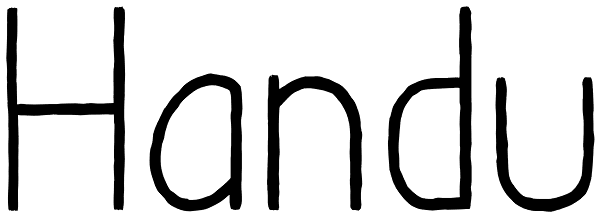
Handu
Handu, designed by Alex Jacque in 2012, is an affable hand-drawn sans-serif inspired by the hand-painted type and signage on the streets of Kolkata, India. Fitting then that it come to life with brush and paint. When used for display purposes the...